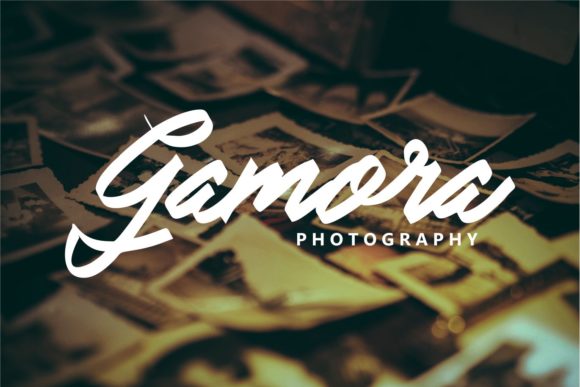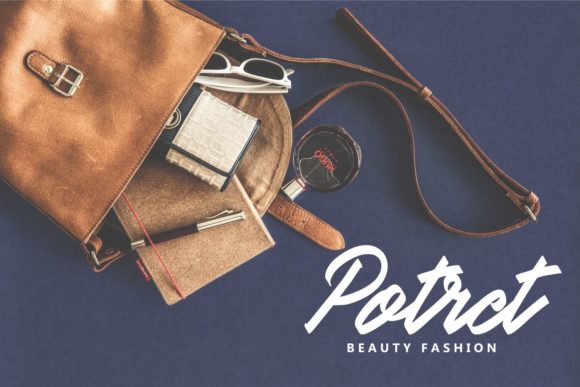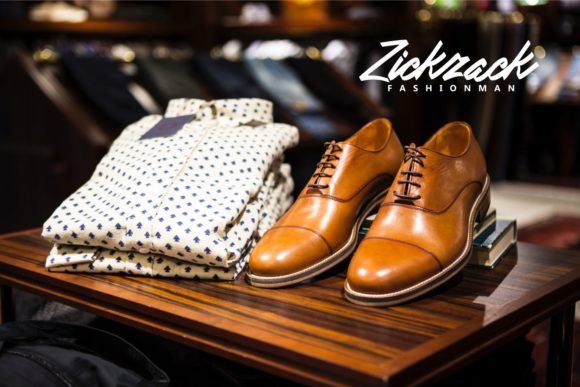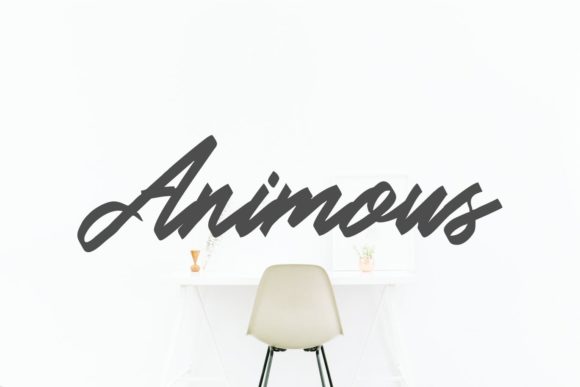
Introducing Doglas Font: Elevate Your Designs with a Unique Handwritten Style
In the world of typography, a font can make or break a design project. A well-crafted font can elevate your work, adding a touch of personality and sophistication. If you’re on the hunt for a modern handwritten font that stands out from the crowd, look no further than Doglas Font. With its stunning and unique feel, Doglas is the perfect addition to any design project, helping you to turn your vision into a standout masterpiece.
What Makes Doglas Font So Special?
Doglas Font boasts a distinctive handwritten style that sets it apart from other fonts on the market. Its modern and elegant feel makes it an excellent choice for a wide range of design projects, from branding and advertising to packaging and digital media. Whether you’re a professional designer or a crafty DIY enthusiast, Doglas Font offers the versatility and flexibility you need to bring your ideas to life.
Key Features of Doglas Font
- Unique Handwritten Style: Doglas Font features a one-of-a-kind handwritten style that adds a personal touch to any design project.
- Modern and Elegant: With its clean lines and sophisticated feel, Doglas Font is perfect for projects that require a modern and elegant aesthetic.
- Highly Versatile: Doglas Font can be used for a wide range of design projects, from print materials to digital media.
- Easily Readable: Despite its unique style, Doglas Font remains highly readable, making it an excellent choice for body text and headings.
How to Use Doglas Font in Your Design Projects
Using Doglas Font in your design projects is easy. Here are a few ideas to get you started:
- Branding and Logo Design: Use Doglas Font to create a unique and memorable logo that sets your brand apart.
- Social Media Graphics: Add a touch of personality to your social media graphics with Doglas Font.
- Packaging Design: Use Doglas Font to create eye-catching packaging that stands out on store shelves.
- Digital Media: Incorporate Doglas Font into your digital media projects, such as videos, presentations, and websites.
Tips for Getting the Most Out of Doglas Font
To get the most out of Doglas Font, here are a few tips to keep in mind:
- Experiment with Different Sizes: Doglas Font looks great in a variety of sizes, from small body text to large headings.
- Play with Color: Don’t be afraid to experiment with different colors and textures to add depth and interest to your designs.
- Mix and Match: Combine Doglas Font with other fonts to create a unique and visually appealing typography scheme.
In conclusion, Doglas Font is a stunning and modern handwritten font that offers a unique feel and versatility. Whether you’re a professional designer or a crafty DIY enthusiast, Doglas Font is the perfect addition to any design project. With its elegant style, readability, and flexibility, Doglas Font is sure to elevate your designs and help you stand out from the crowd.